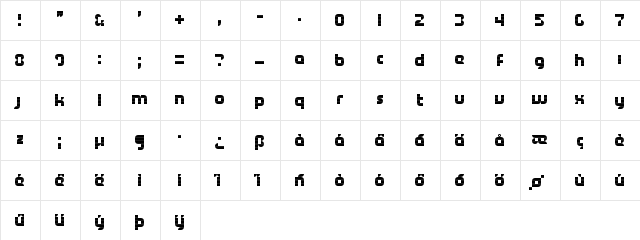
Dafont.com Regular
| Designer | Font Ners |
Design Context for Dafont.com Typeface
Dafont.com takes a measured approach to typography — its balanced proportions and neutral character make it a reliable workhorse for both digital and print work.